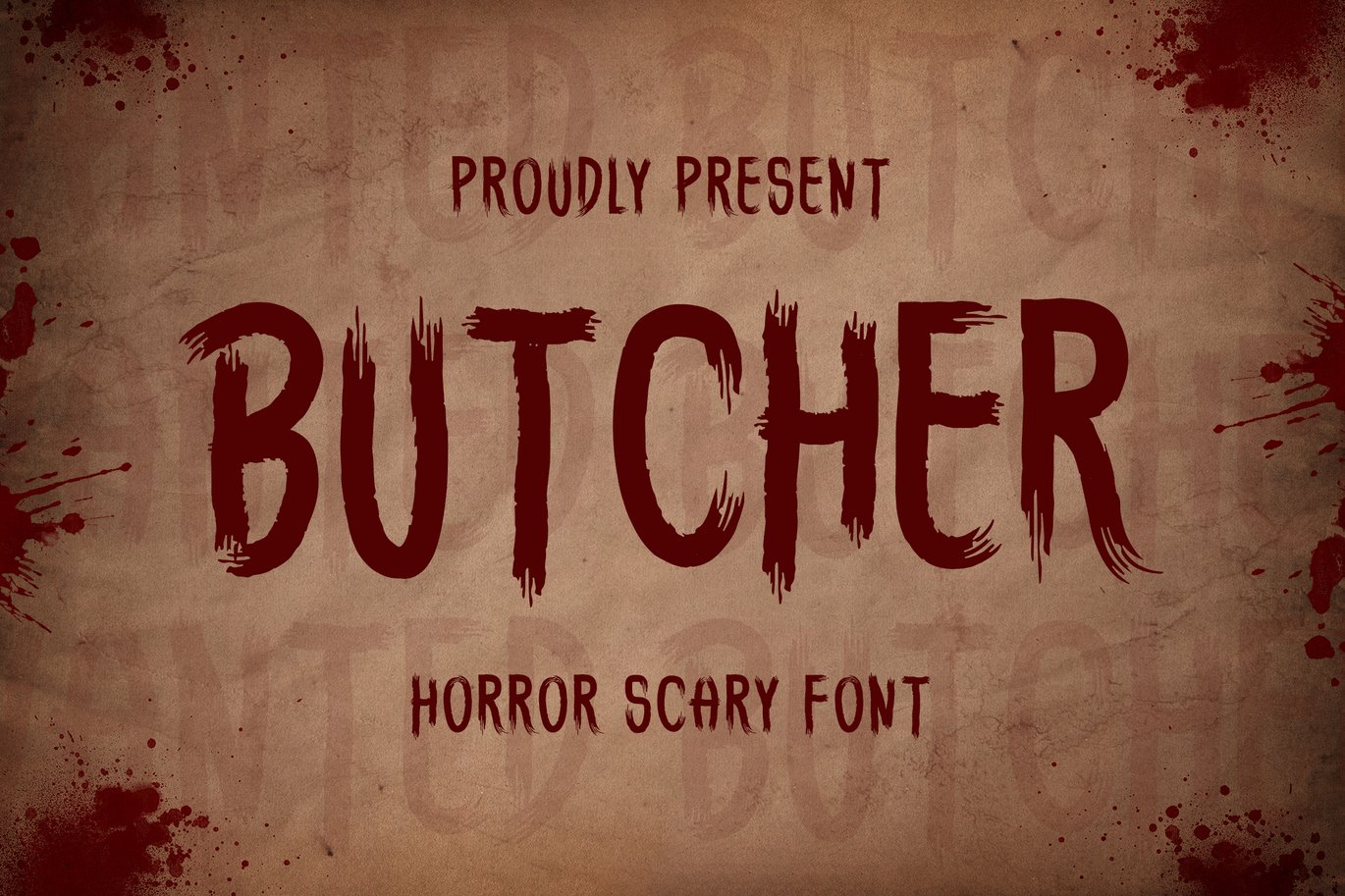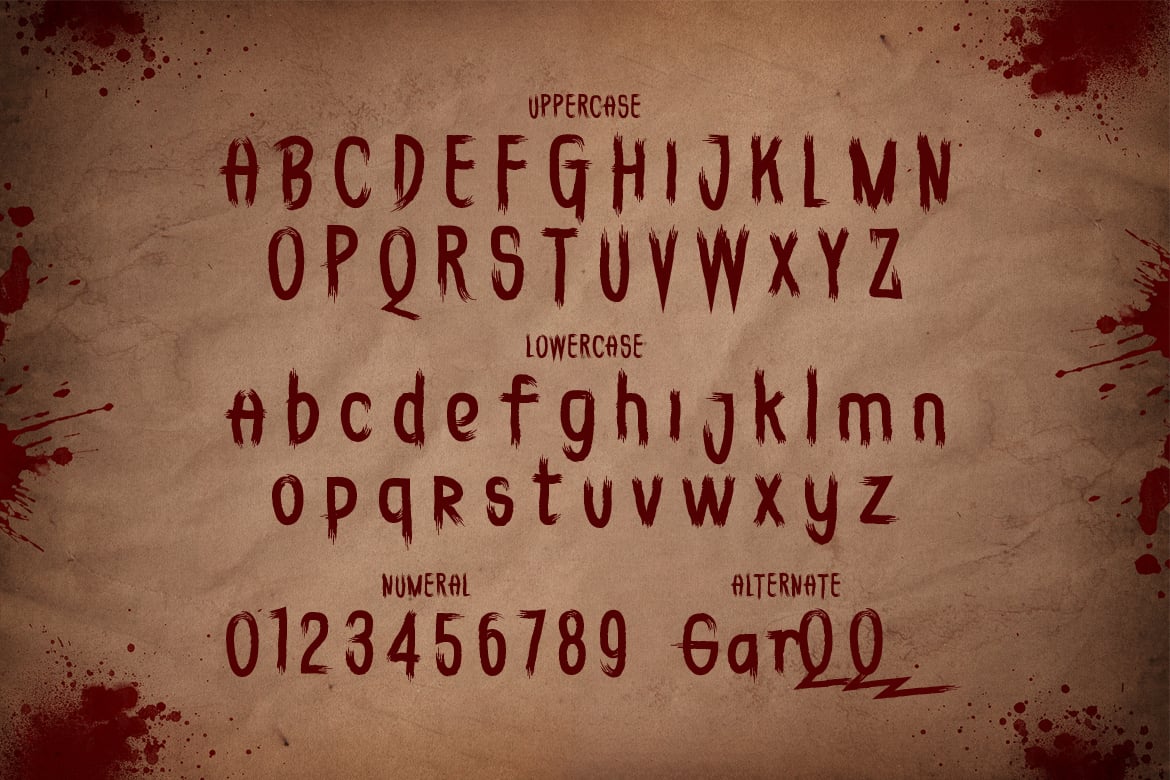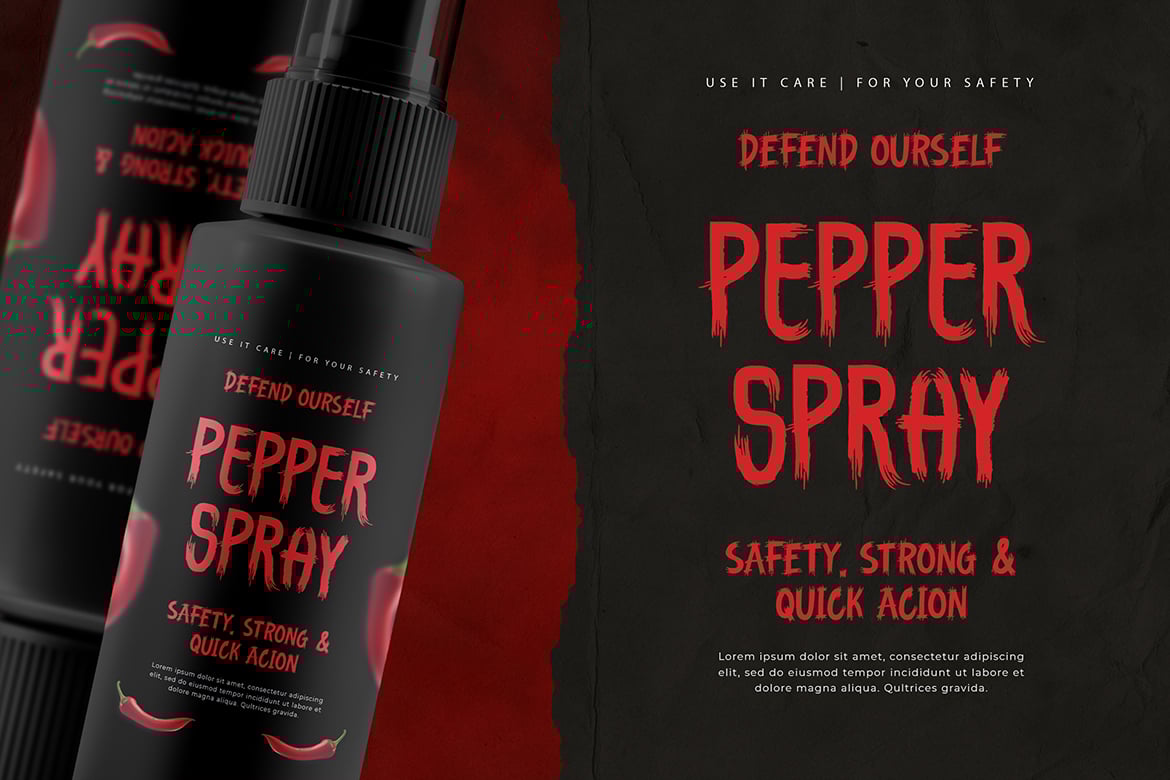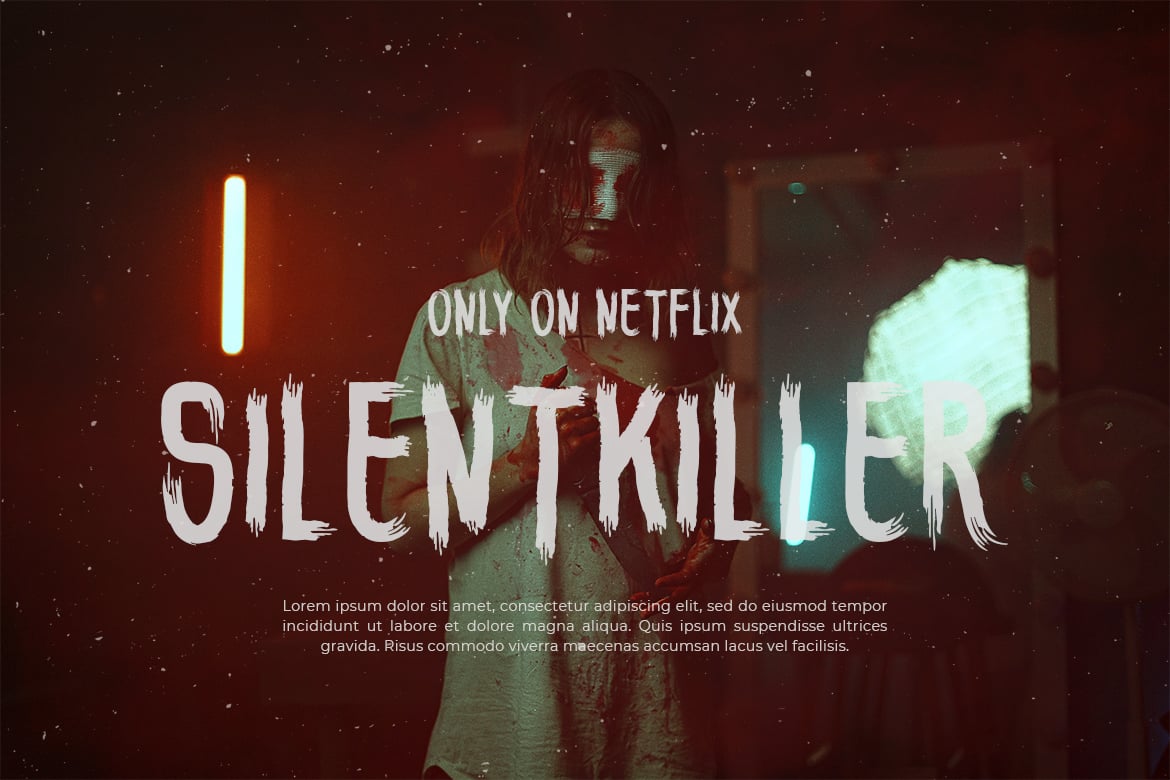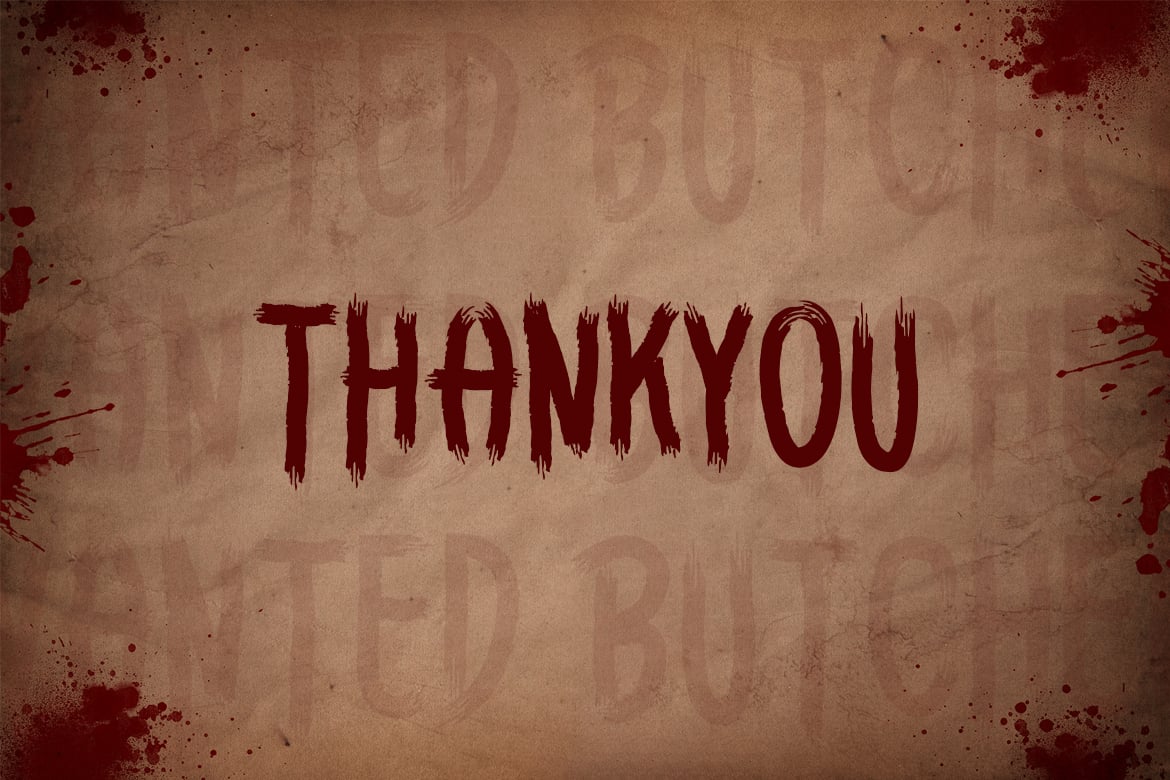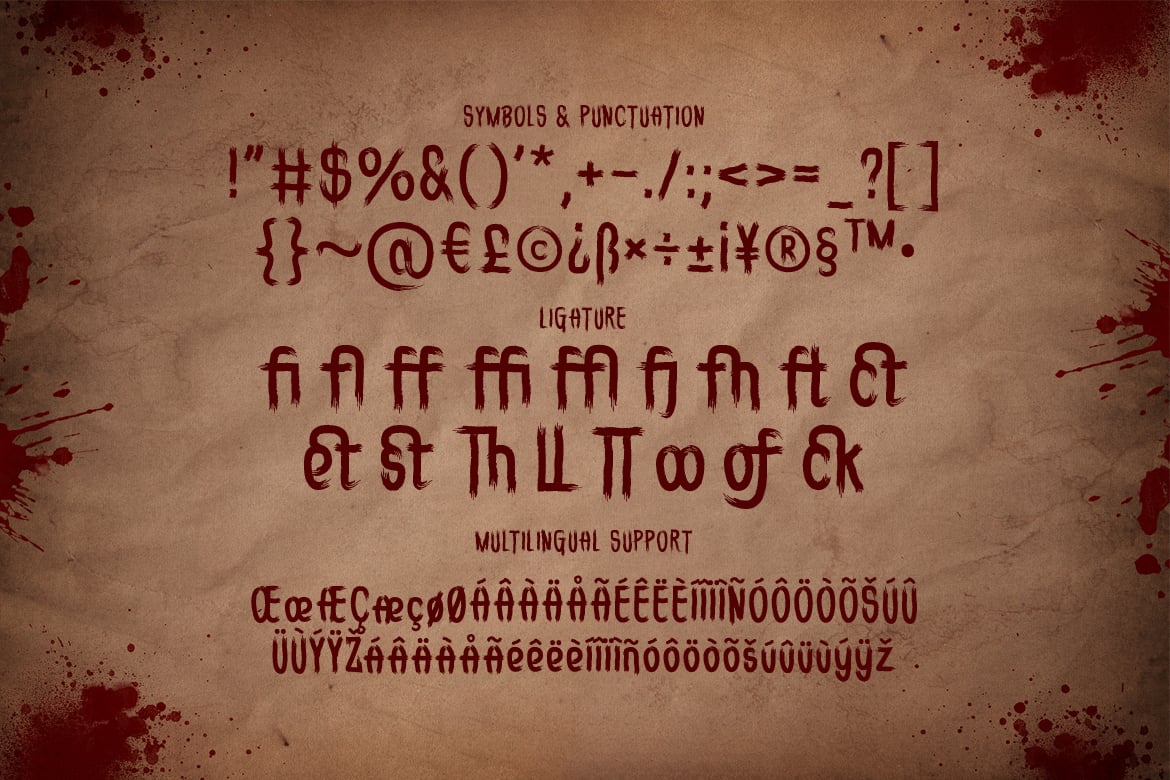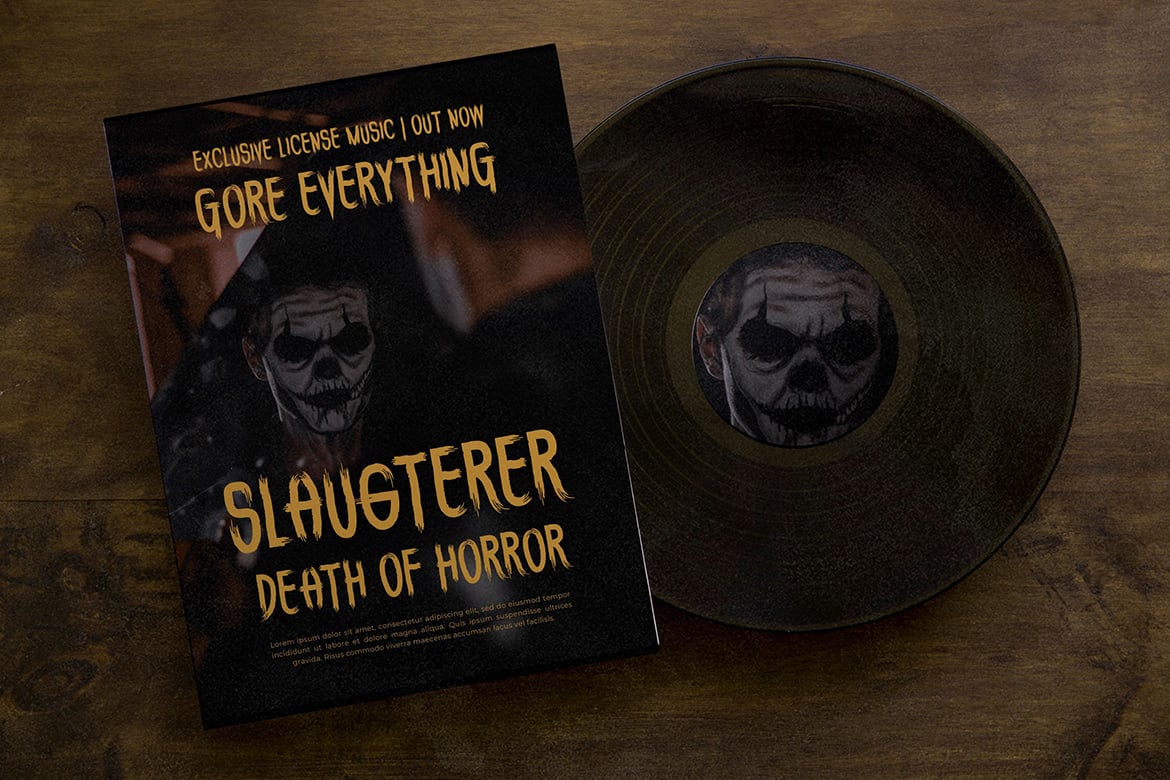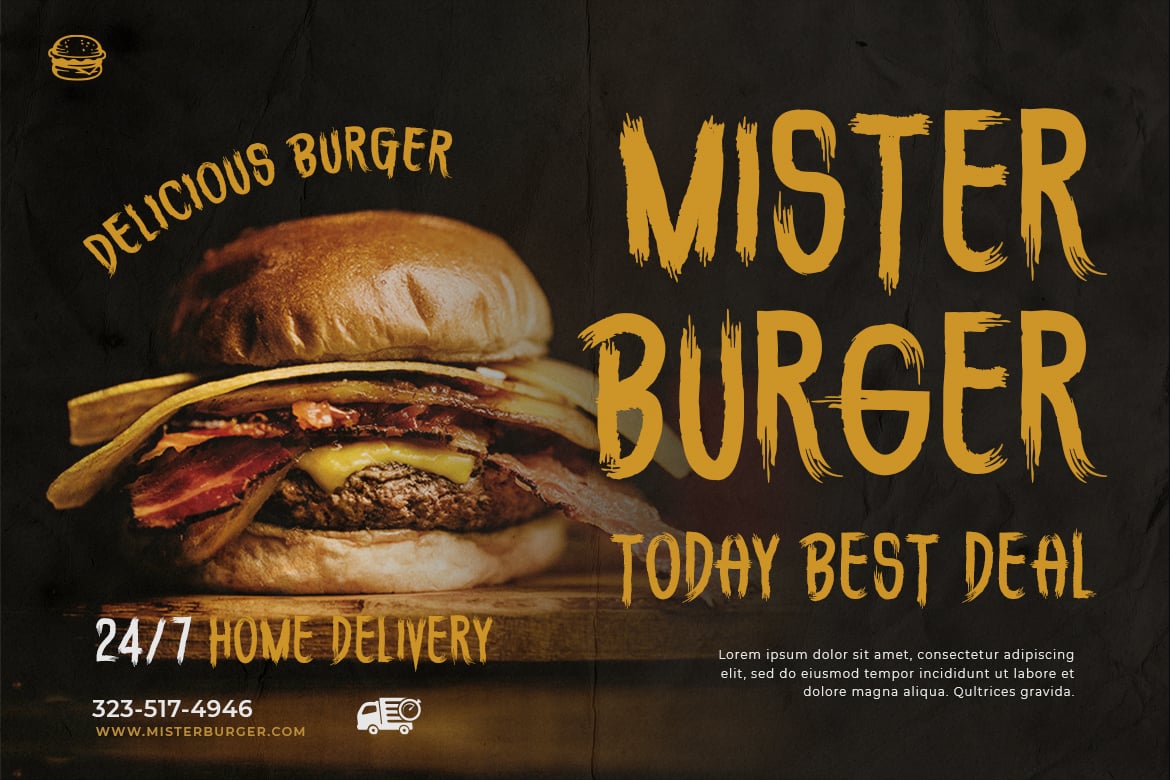
Butcher – Horror Scary Font
Butcher is a dark, horror looking display font. Add it to your scary crafts, horror movie posters, t-shirts and anything else that requires a spectacular look.